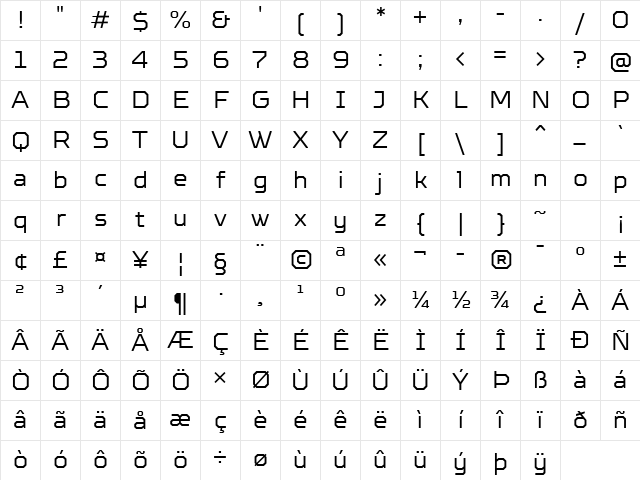
TT Octosquares Trl Lt Free Font
TT Octosquares Trl Lt
Style: Lt
Designer: TypeType
Complete TT Octosquares Trl Lt glyph index. Displaying only characters natively supported by TT Octosquares Trl Lt font.
Design Context for TT Octosquares Trl
TT Octosquares Trl is a composed and adaptable typeface that performs quietly and consistently across a wide range of design contexts. Its slender proportions lend an understated elegance to any composition.